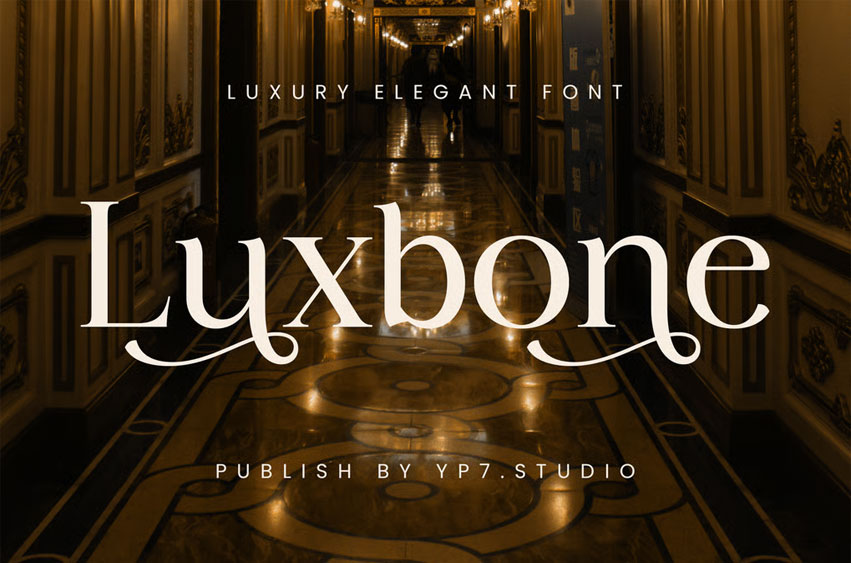
Luxbone Font
Luxbone Font Luxury Elegant Font – Luxbone. It fits in headlines, logos, posters, flyers, invitations, name cards, branding materials, print media, editorial layouts, and many more.